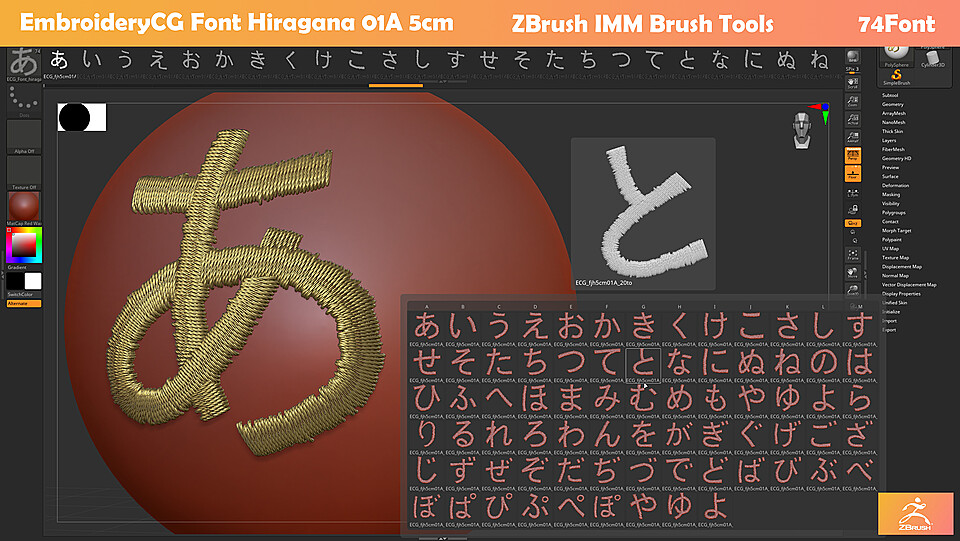
ECG Font Japan Hiragana01A Zbrush IMM Brush
EmbroideryCG Font Japan Hiragana01A Zbrush IMM Brush
- size:5cm
- 74 Japan Hiragana model
- Reference Embroidery Stitch Making
- Easily make embroidered word effects on clothes to save production time